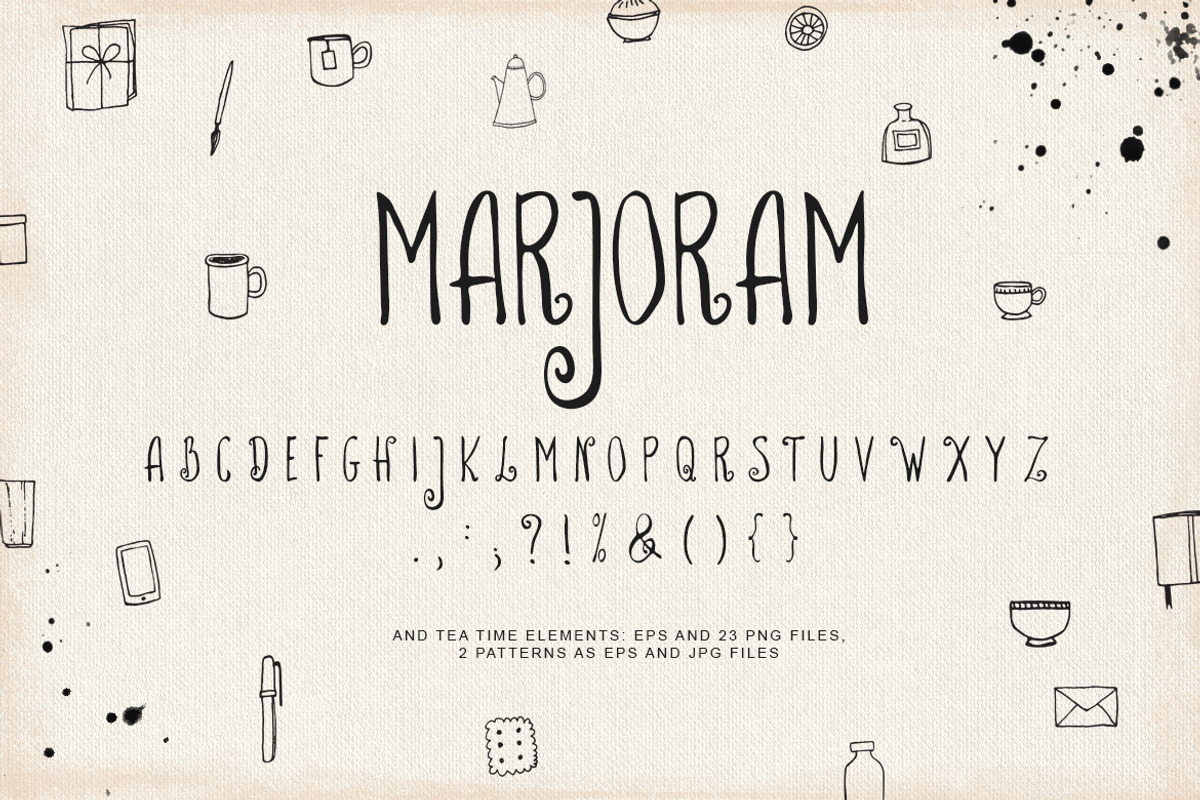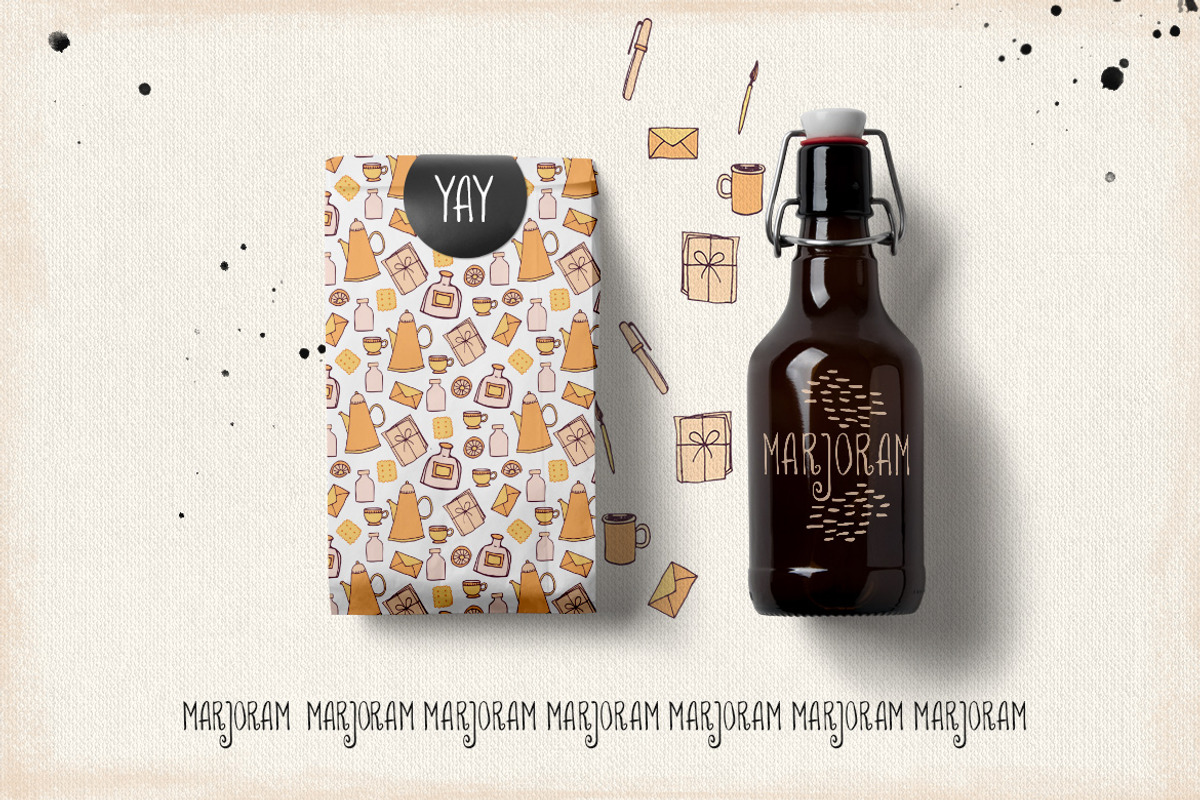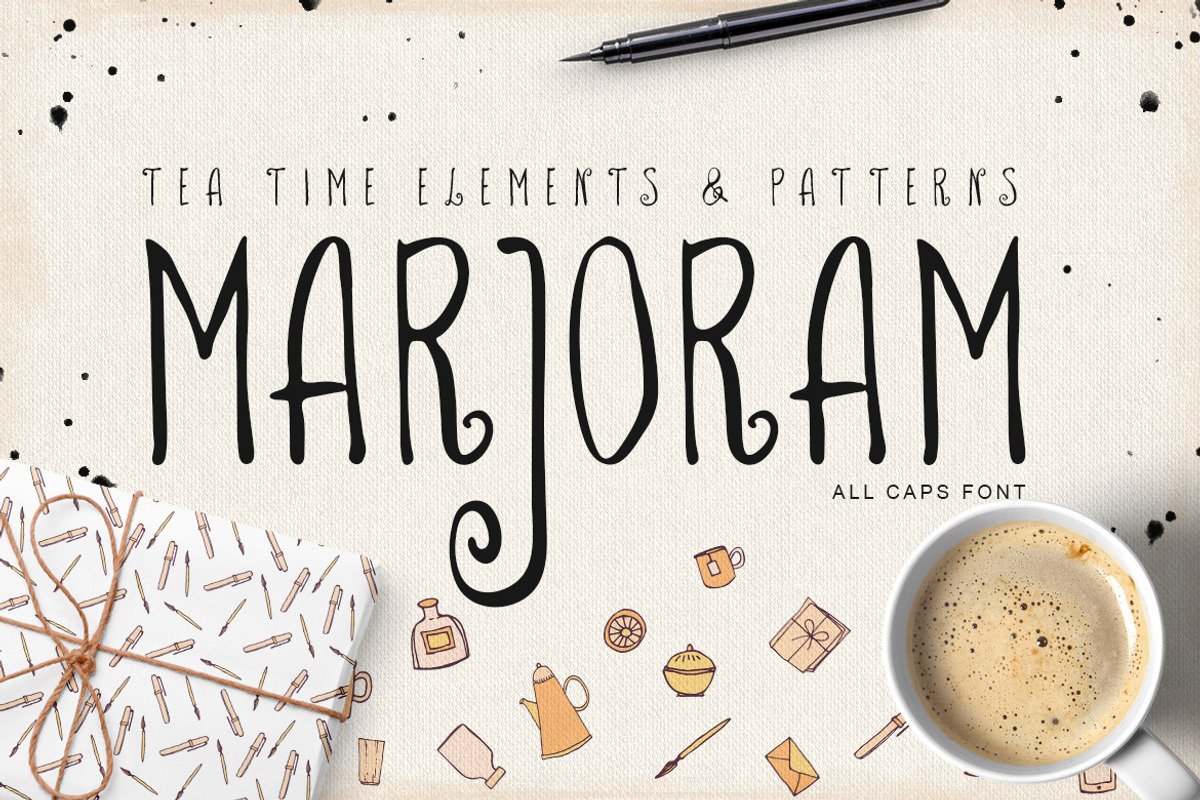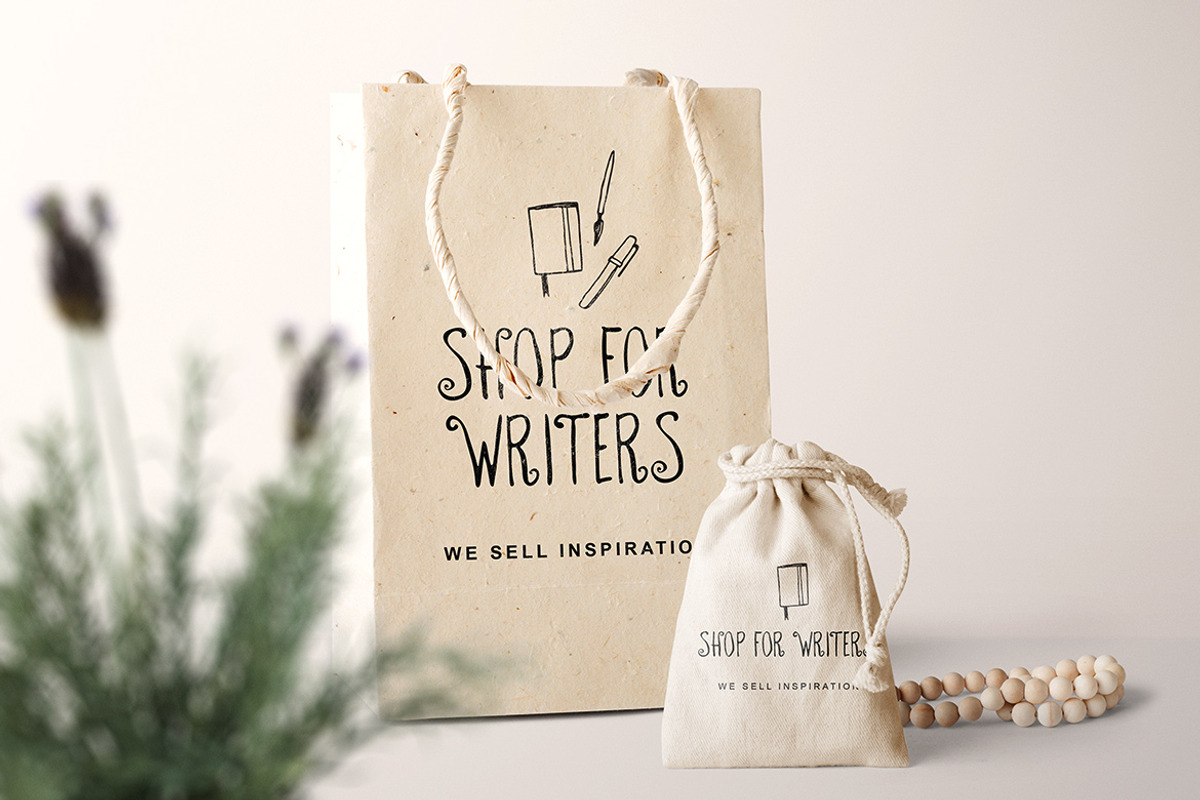
Marjoram font
Marjoram font by Webvilla Studio is a font selected for branding, posters, packaging, typography.
Why Marjoram font is worth a look
Marjoram font by Webvilla Studio fits naturally into Branding, posters, packaging, typography.